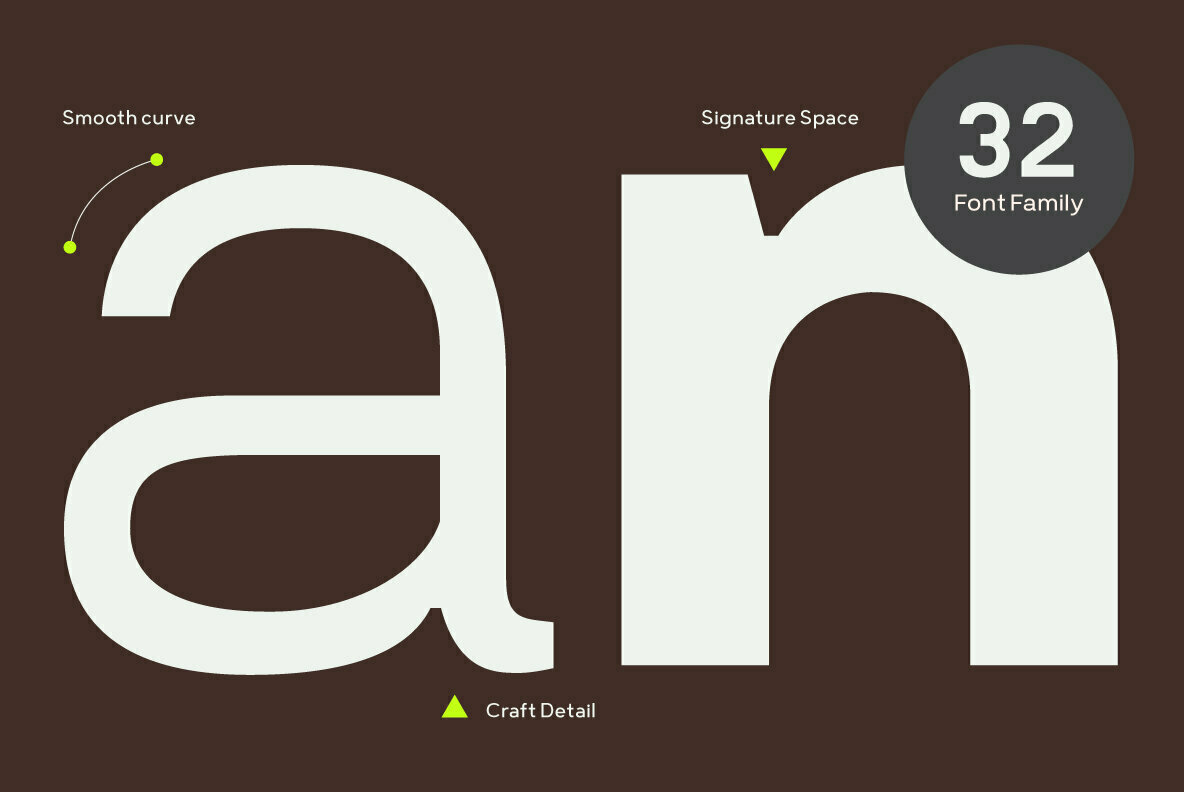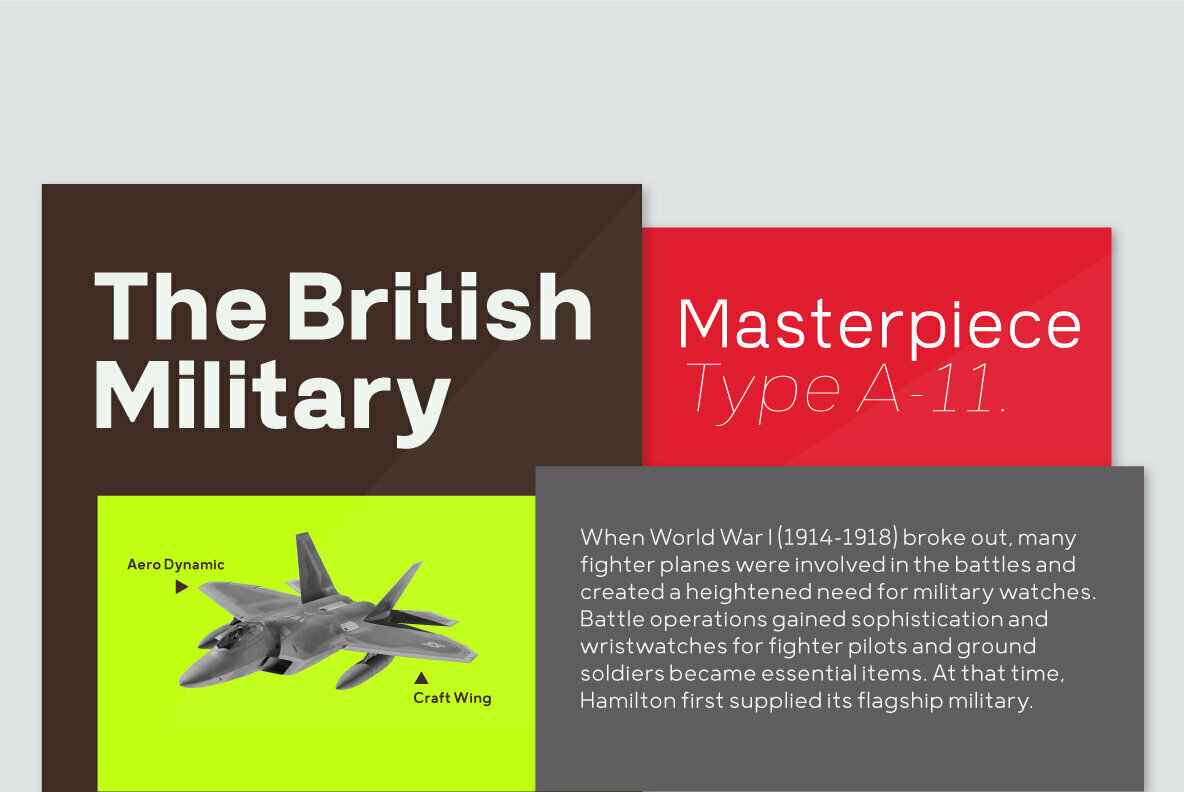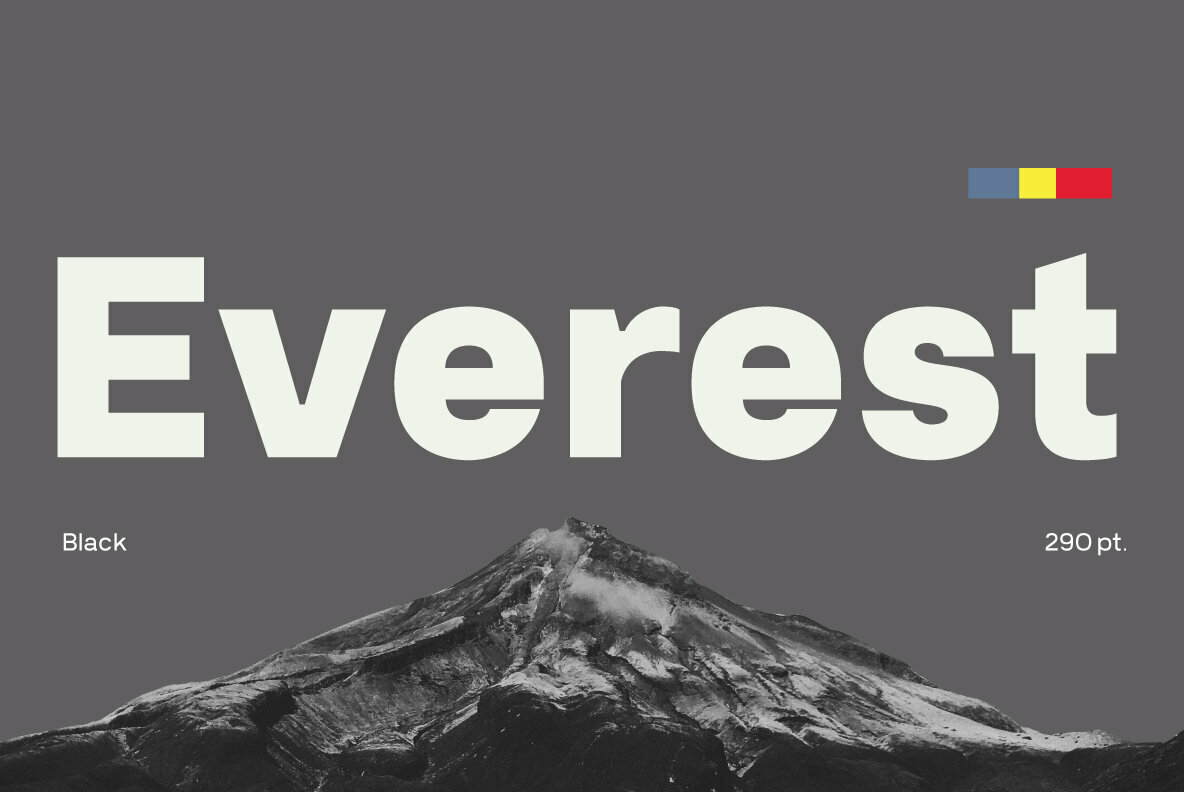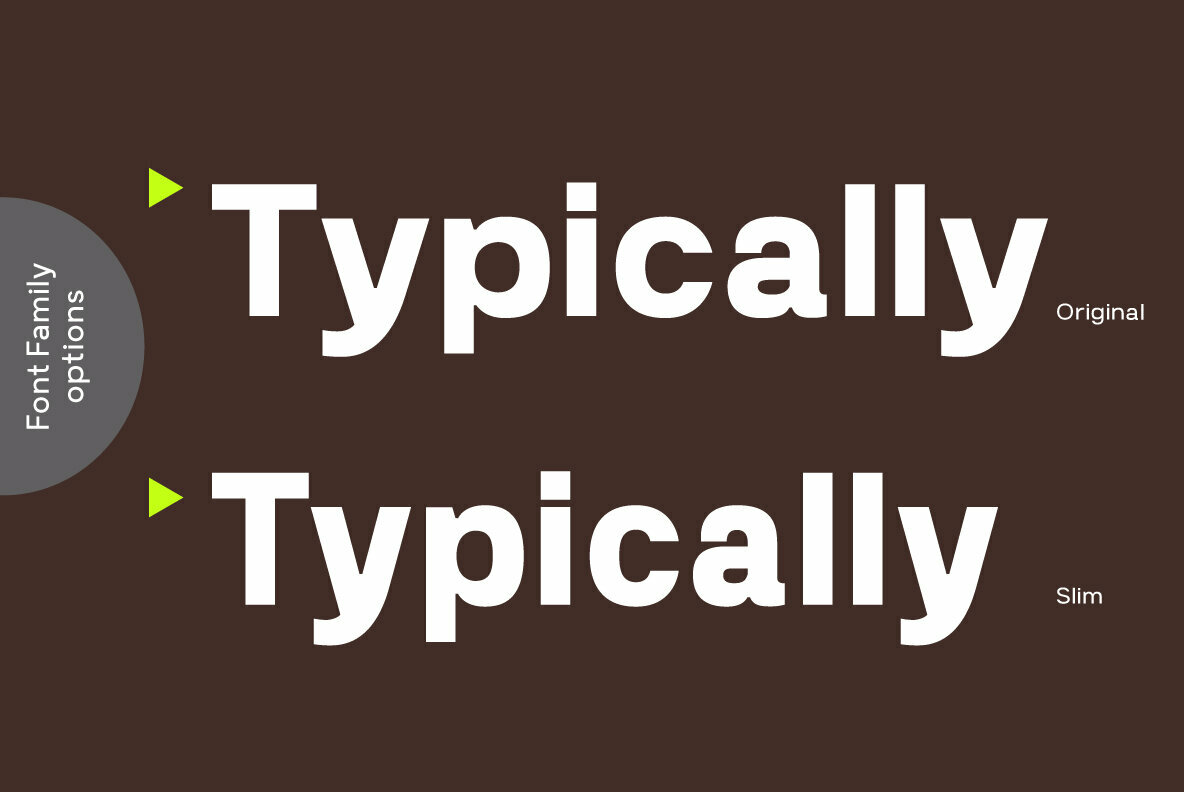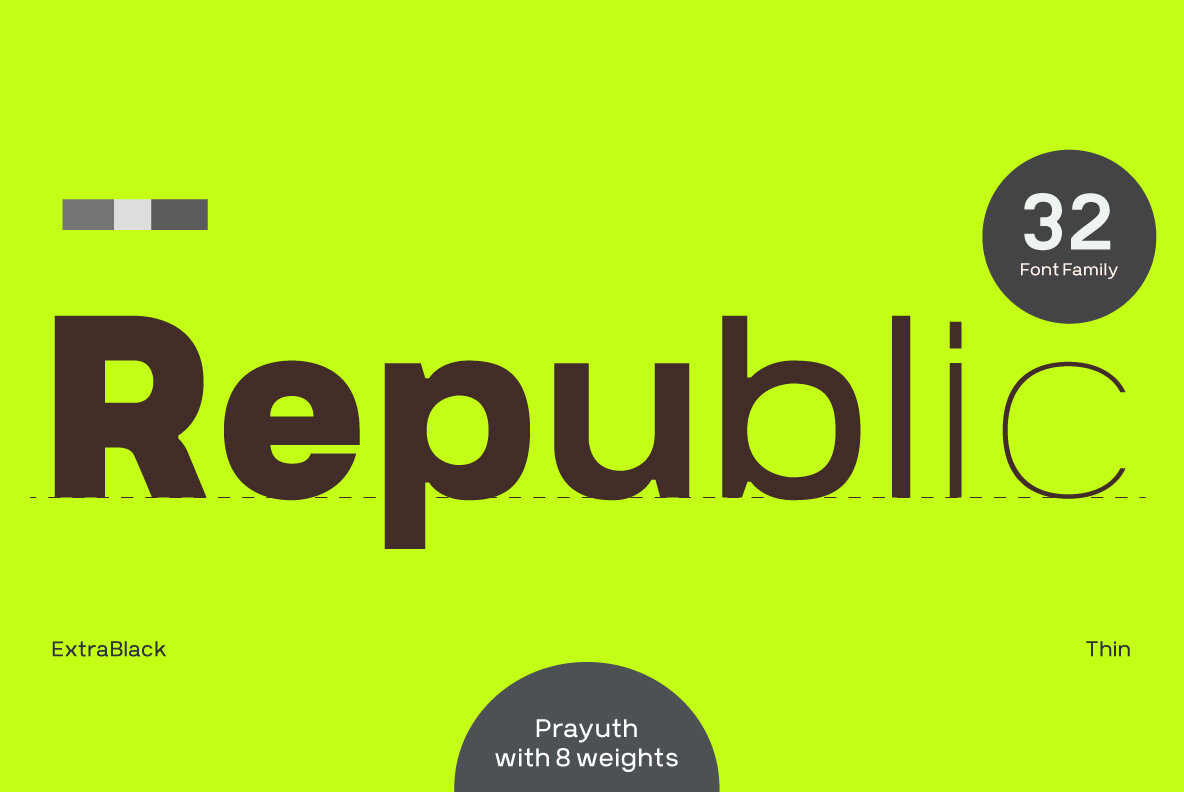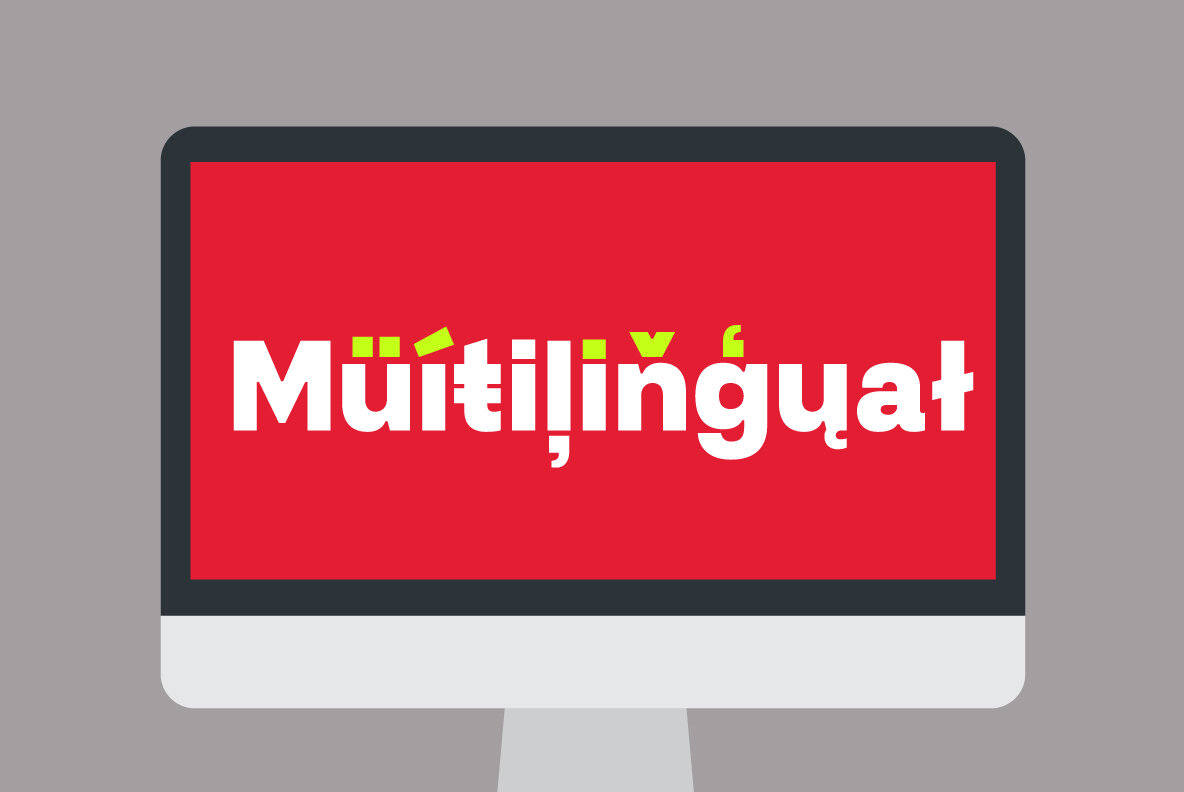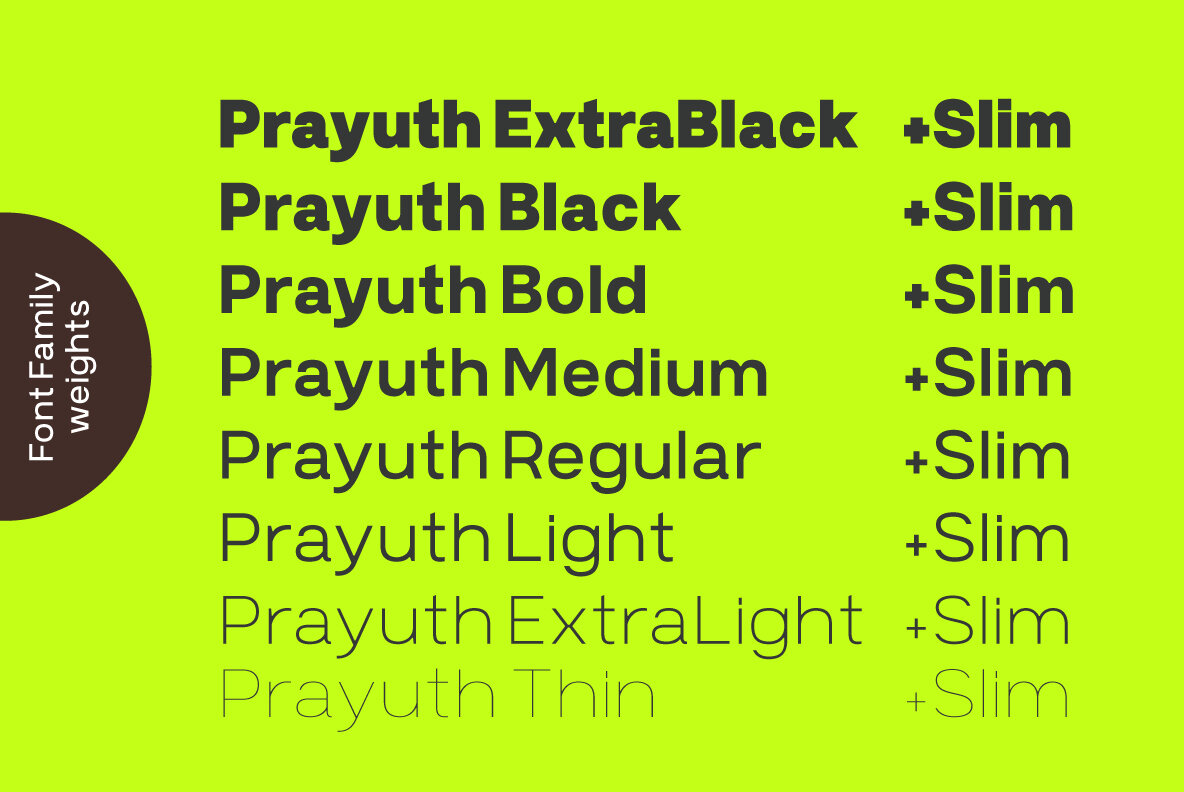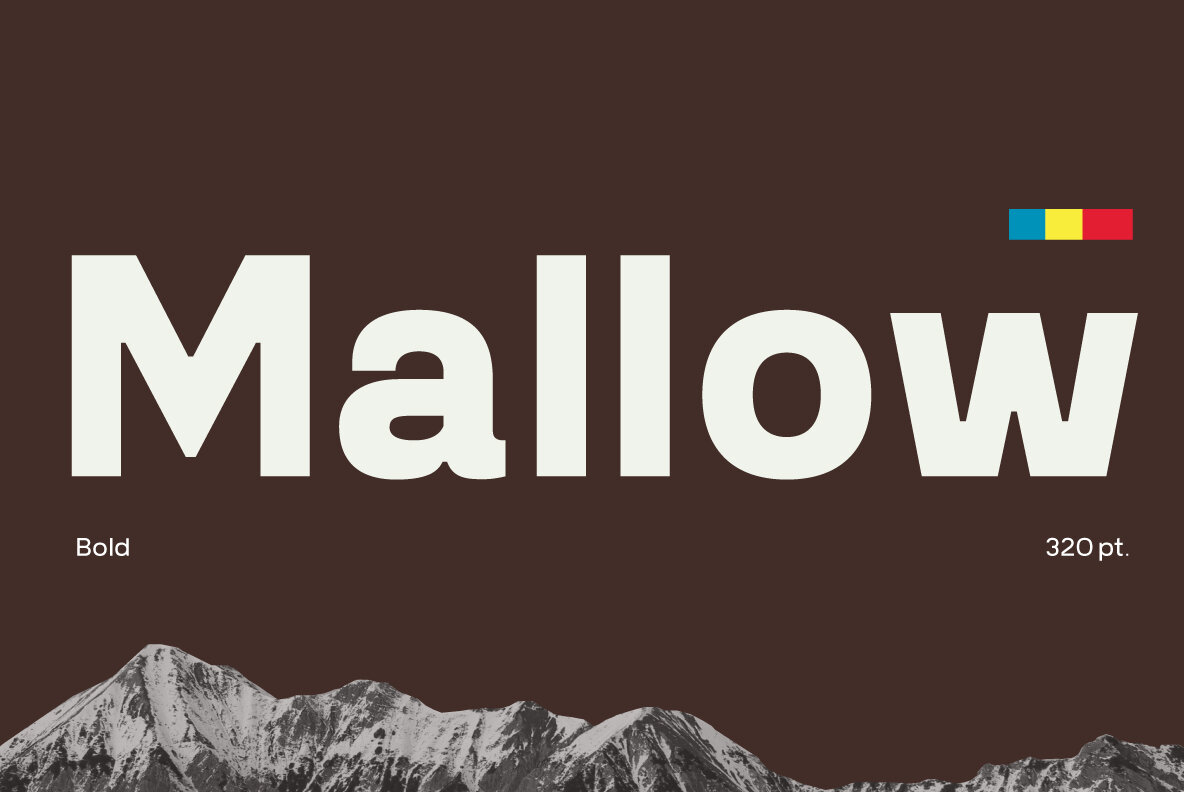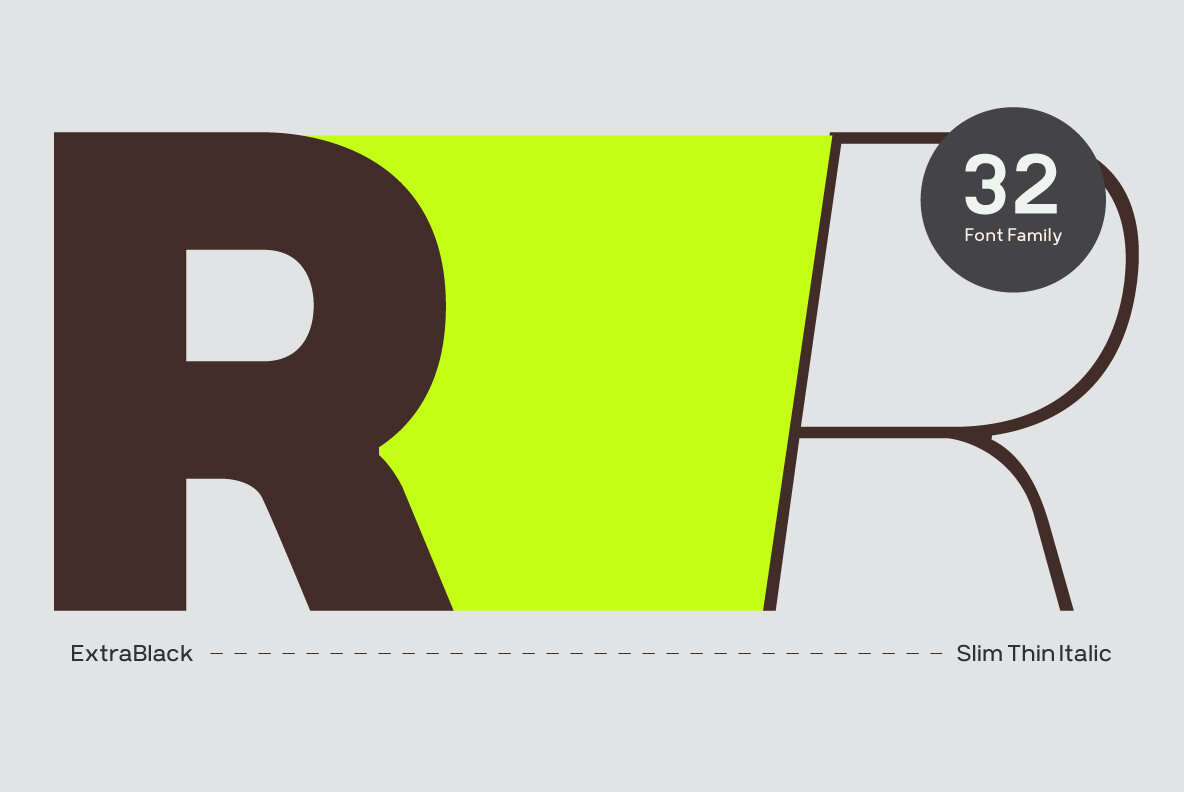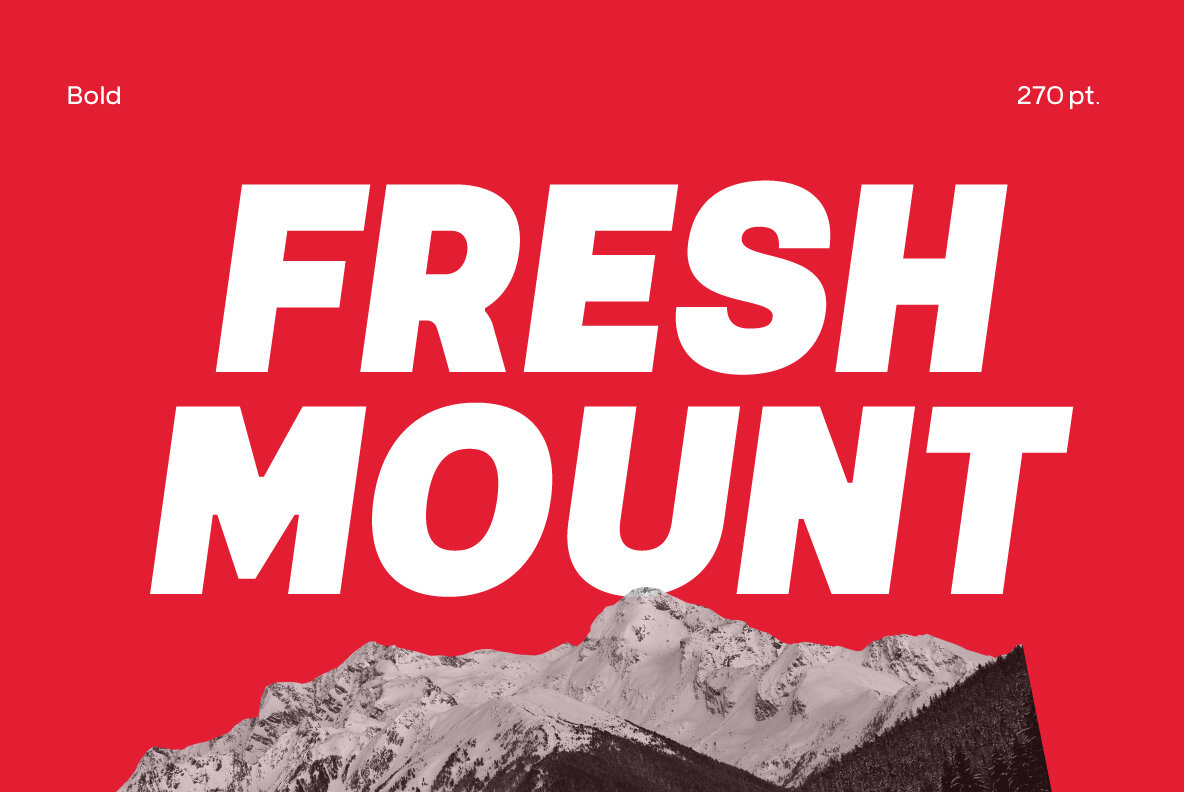
Prayuth Font
Prayuth is a contemporary sans-serif typeface made up of 32 fonts across 8 weights with normal and slim options. It’s a unique and modern sans typeface, which is well suited for a variety of typographic applications such as headlines and small texts. The Prayuth font family supports multiple languages and is available as both webfont and desktop font.
Located in the capital city of Thailand, Chatnarong Jingsuphatada started his type design career while working as a graphic designer. Throughout his career, whenever he was unable to find exactly what he needed for his own design projects, he began to create new typefaces rather than settle for ones that didn’...